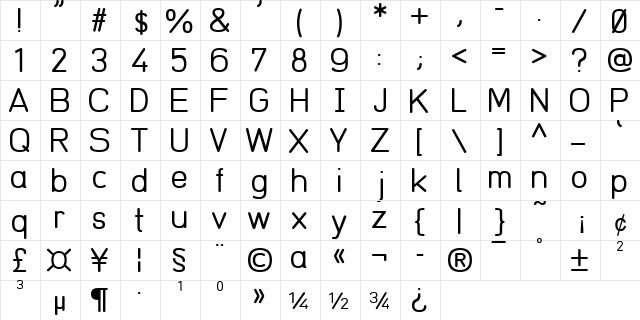
REDRING 1969 Regular
| Foundry | E. V. Norat II |
| Designer | E. V. Norat II |
Design Context for REDRING 1969 Typeface
REDRING 1969 is a composed and adaptable typeface that performs quietly and consistently across a wide range of design contexts.